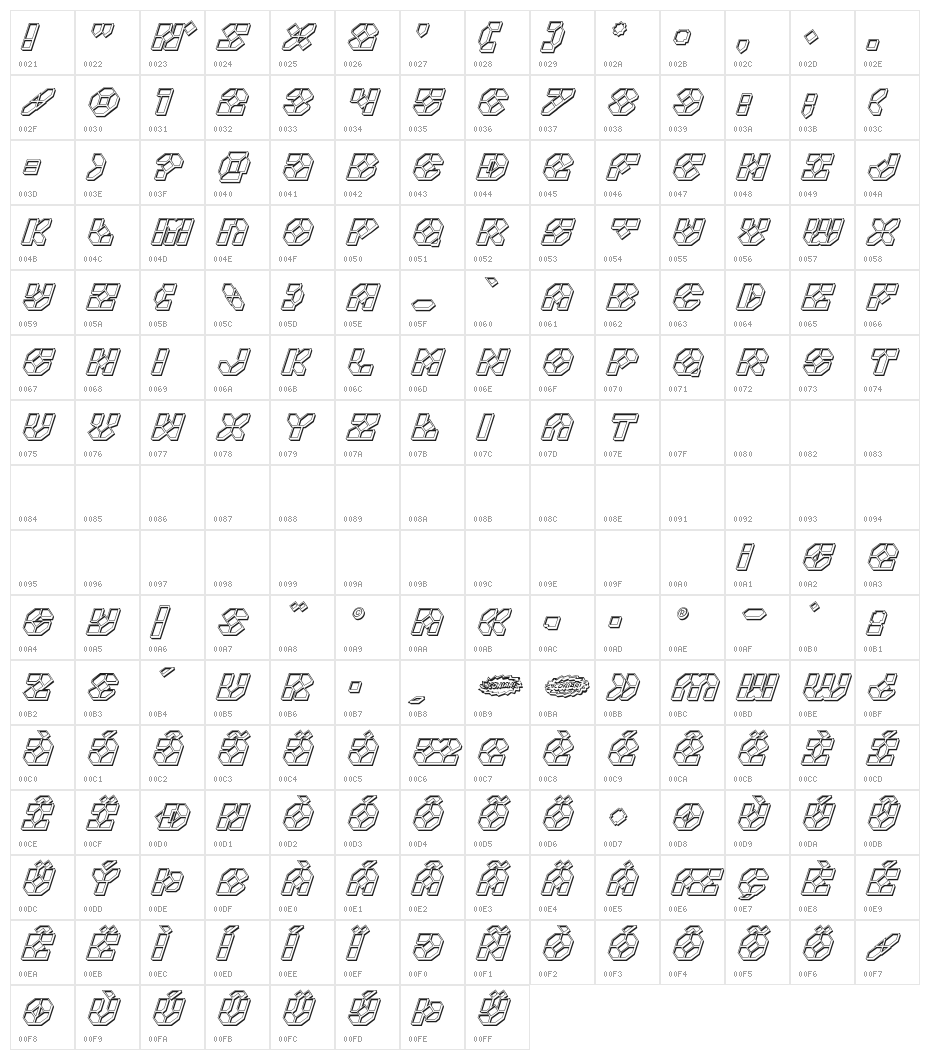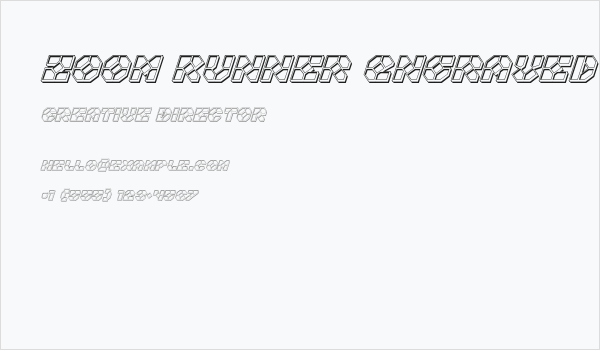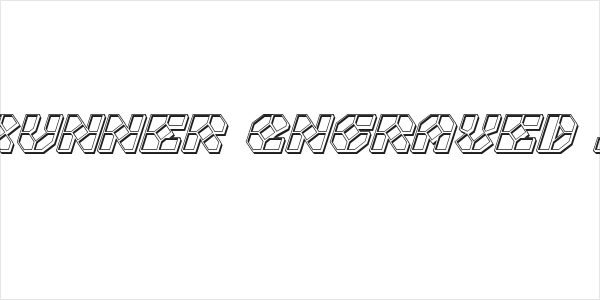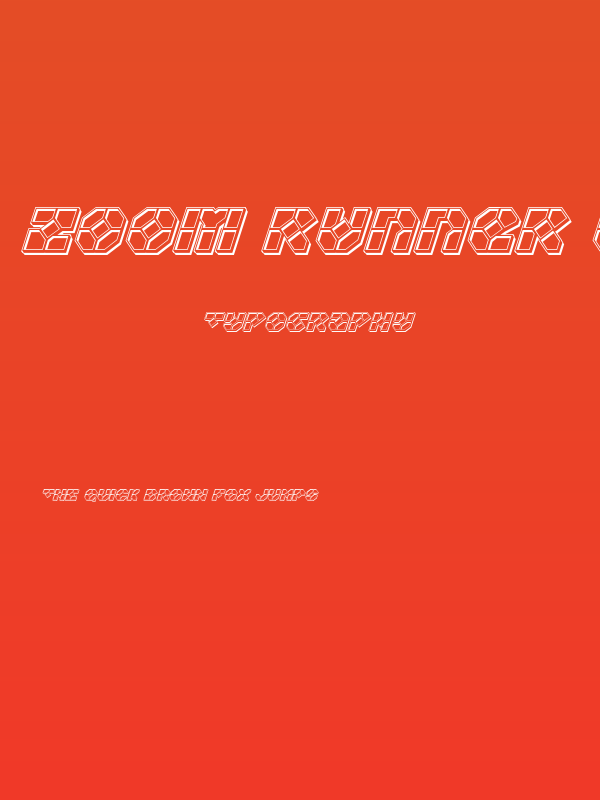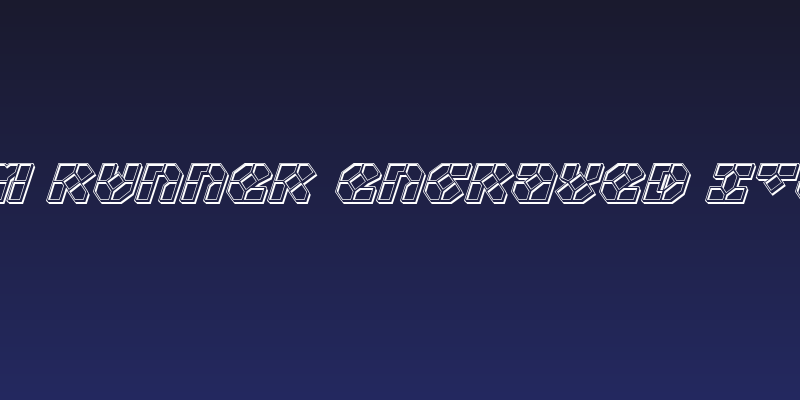
Zoom Runner Engraved Italic Font
Zoom Runner Engraved Italic Description
This font features a bold, geometric design with a three-dimensional engraved effect. Each character is constructed with angular lines and sharp edges, creating a sense of depth and movement. The italic slant adds a dynamic and futuristic feel, making it stand out in any design. The uppercase and lowercase letters maintain a consistent style, while the numbers and special characters complement the overall aesthetic. The font's unique structure and engraved appearance make it ideal for projects that require a modern and eye-catching typeface.
| Overall Style | Futuristic, Modern |
| Proposed Projects | Ideal for sci-fi themed designs, video game titles, tech branding, and futuristic posters. |